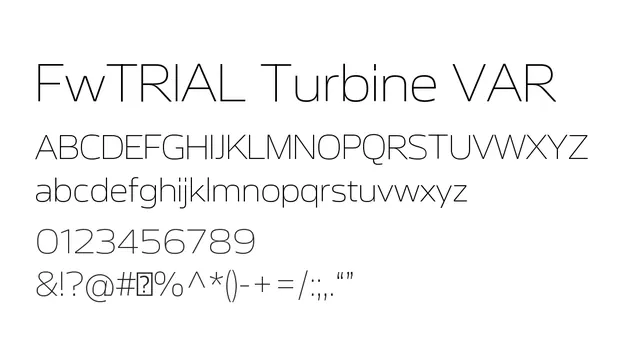
FwTRIAL Turbine VAR
FwTRIAL Turbine VAR, modern, elegant
A sophisticated humanist sans-serif with elegant proportions and refined letterforms that convey contemporary warmth and approachability.
Ideal for luxury branding, editorial display, and design-forward projects where sophistication matters. The open letterforms and humanist quality add personality beyond purely geometric typefaces.
Pairs beautifully with a proportional serif like Garamond or a humanist serif like Charter for editorial contexts requiring both elegance and legibility.